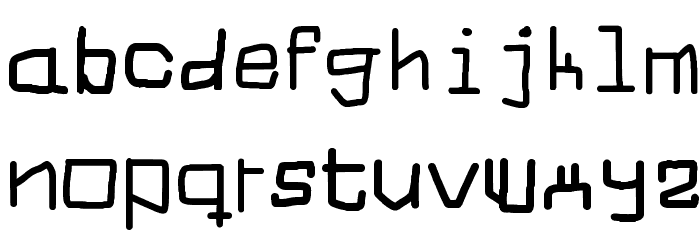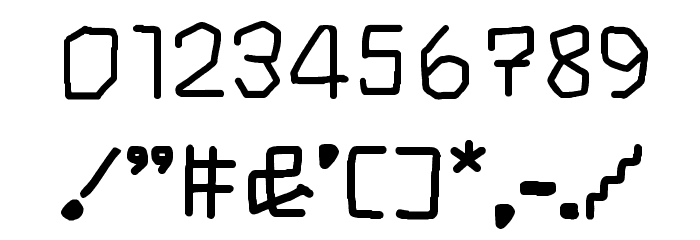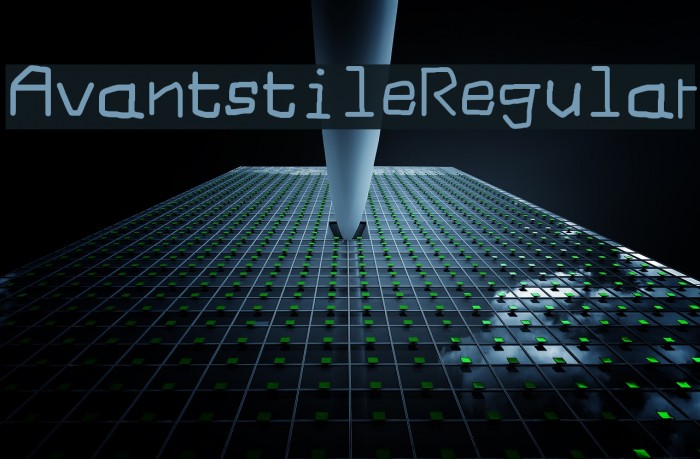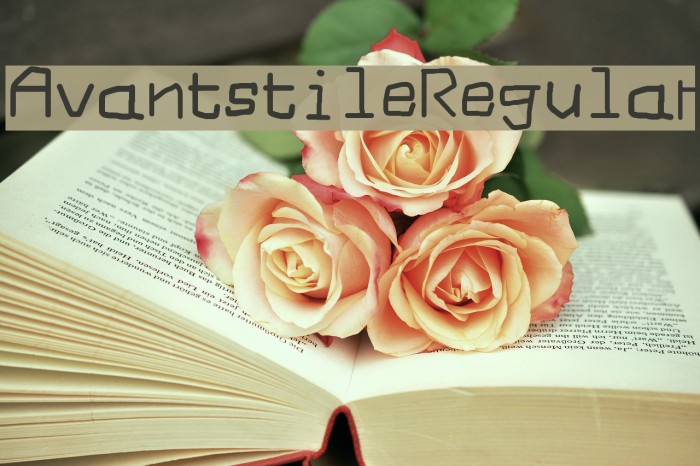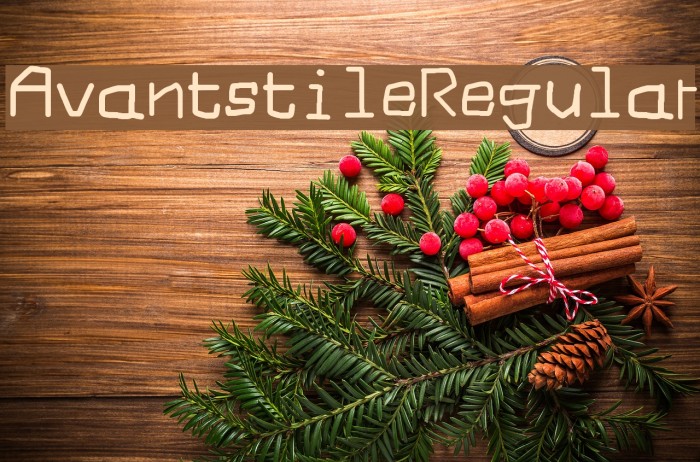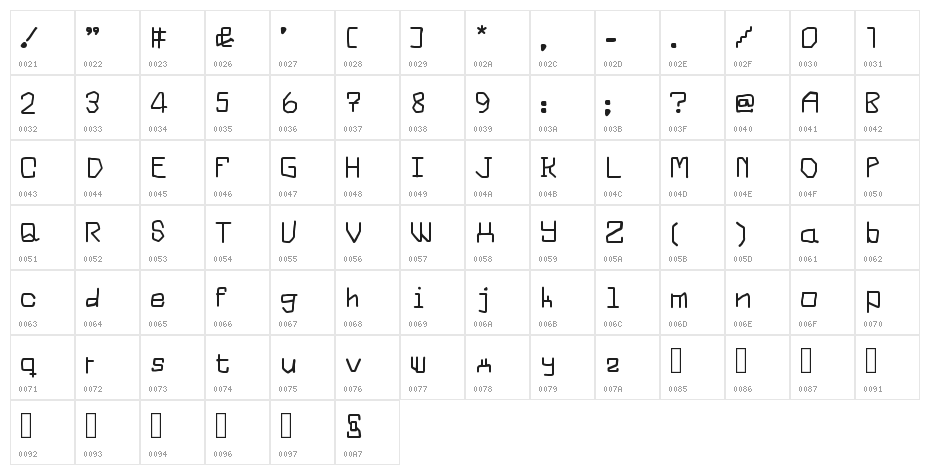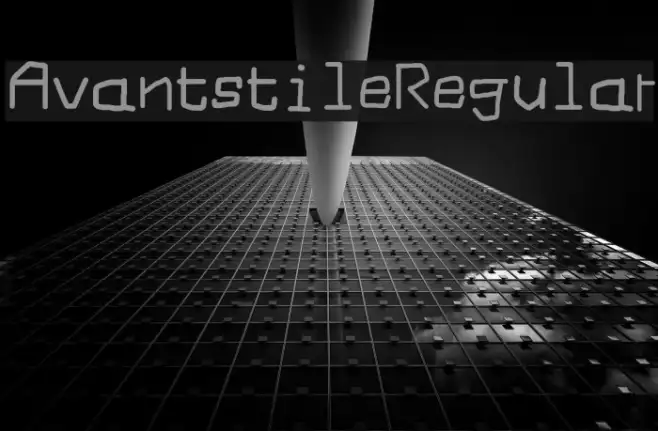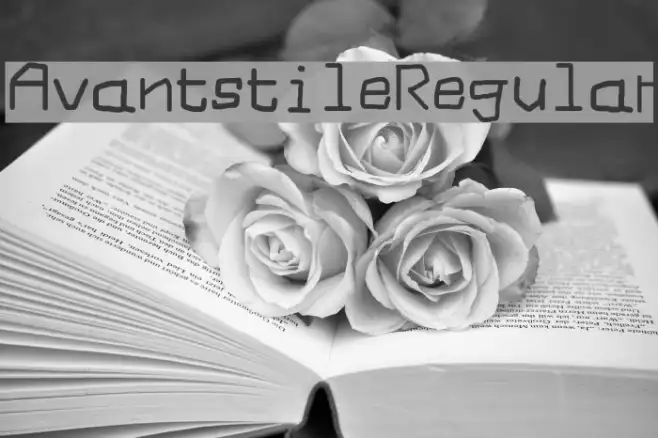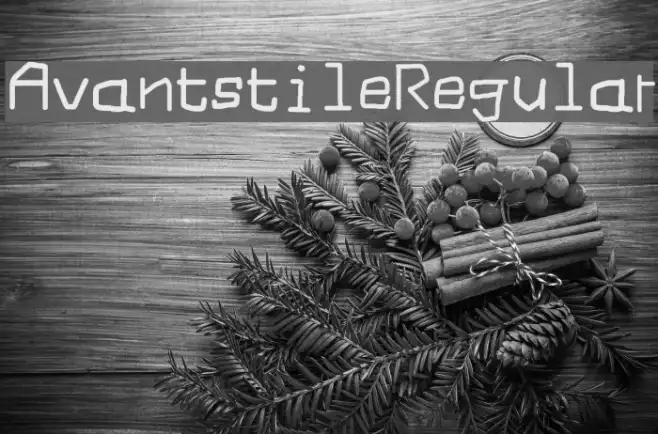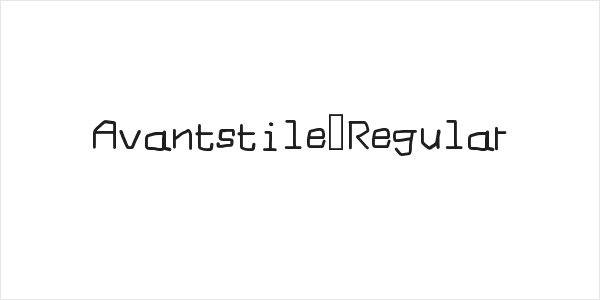
Avantstile Regular Font
This font features a unique, hand-drawn style with a modern twist. The characters are formed with a consistent stroke width, giving it a monoline appearance. The uppercase letters are angular and geometric, while the lowercase letters maintain a playful, rounded form. The numbers and special characters follow the same design principles, ensuring a cohesive look across all glyphs. The overall style is casual yet structured, making it suitable for projects that require a touch of creativity and informality.
A modern, hand-drawn font with geometric uppercase and playful lowercase letters.
- Proposed Projects: Ideal for creative projects such as children's books, casual branding, and artistic posters.
- Use Case: Logos, Posters, Creative projects